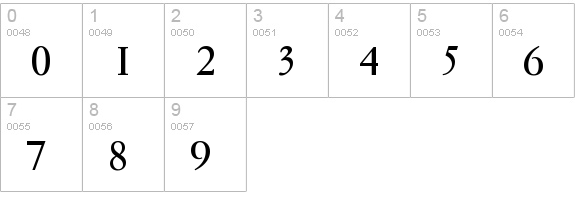
GarfeldSerial font is a charming and versatile typeface that exudes a sense of playfulness and creativity. With its unique and eye-catching design, this font is perfect for a wide range of projects, from branding to packaging to social media graphics. The bold and distinctive letters of GarfeldSerial will make your text stand out and capture the attention of your audience. The best part? GarfeldSerial font is completely free to download at FontsMarket.com. Whether you're a professional designer looking to add a fun twist to your work or a casual user in need of a fresh and exciting font for your personal projects, GarfeldSerial is the perfect choice. Don't miss out on this fantastic opportunity to enhance your designs with this amazing font that is just a click away. Download GarfeldSerial today and let your creativity soar!